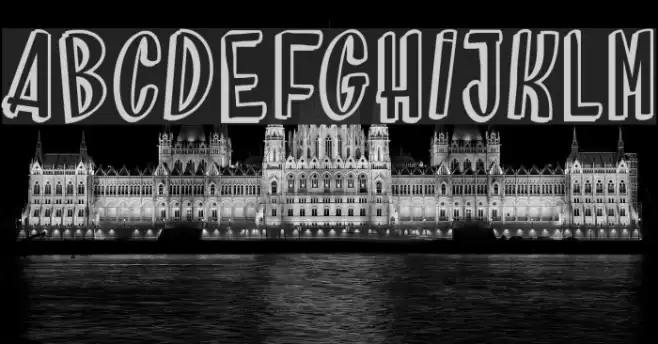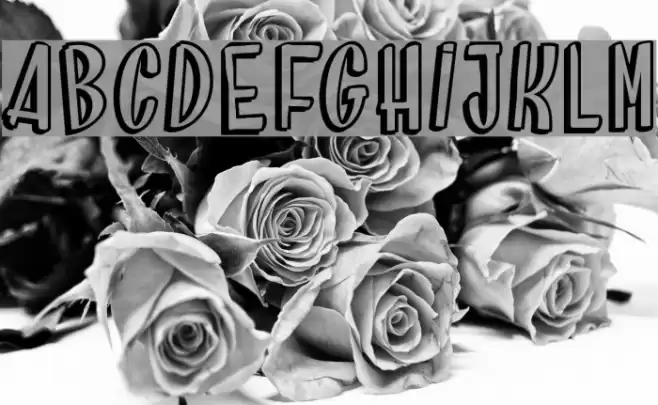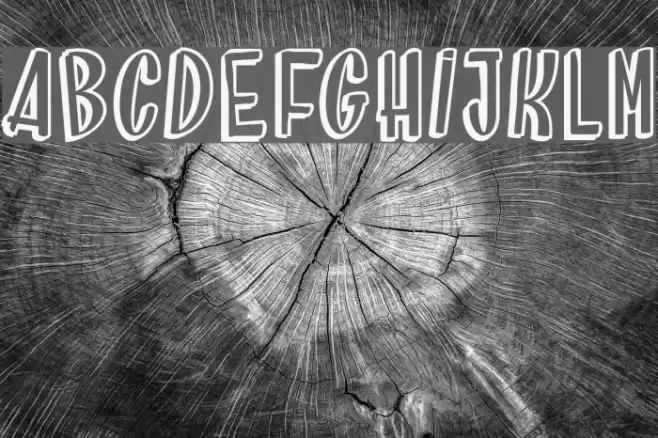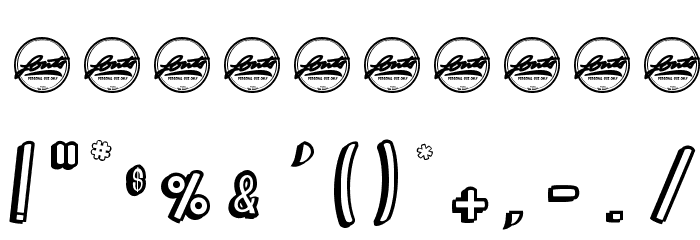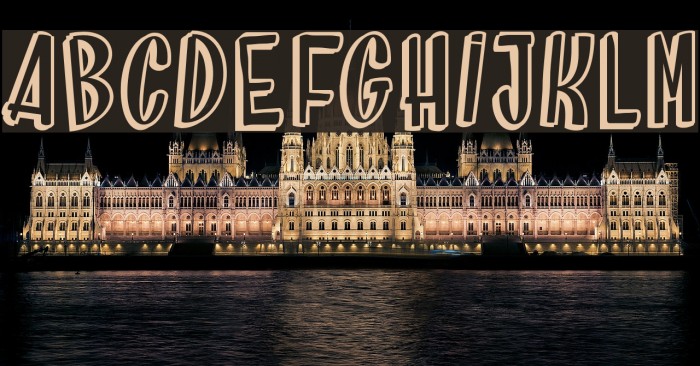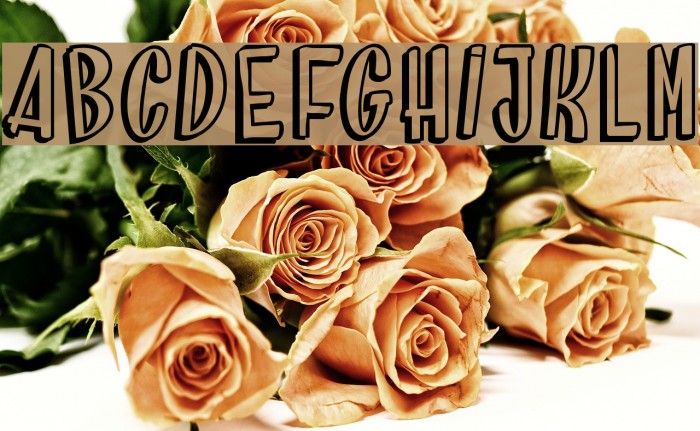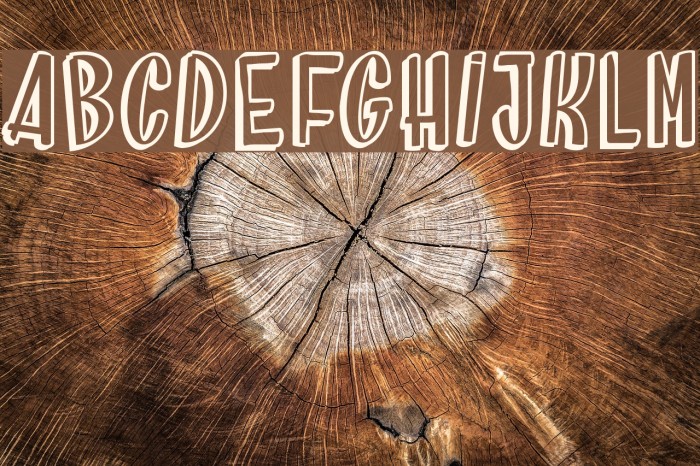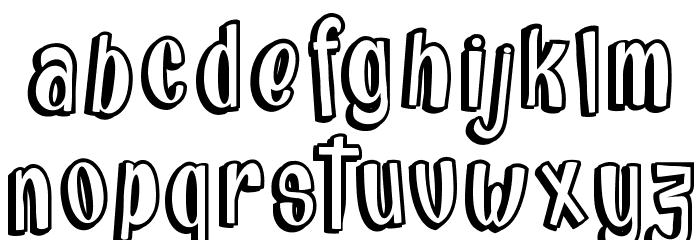
Brainfish Rush_PersonalUseOnly Font
Brainfish Rush_PersonalUseOnly Description
This font features a bold and playful design with a strong outline that gives each character a distinct presence. The uppercase letters have a slightly exaggerated, cartoonish style, while the lowercase letters maintain a consistent, rounded form. The font includes a full set of numerals and a variety of special characters, each maintaining the same bold, outlined aesthetic. The overall look is dynamic and eye-catching, making it suitable for projects that require a fun and energetic vibe.
A bold, outlined font with a playful and cartoonish style from Uncategorized fonts.
- Proposed Projects: Ideal for children's book covers, playful branding, posters, and event flyers.
- Overall Style: Playful, Cartoonish, Energetic